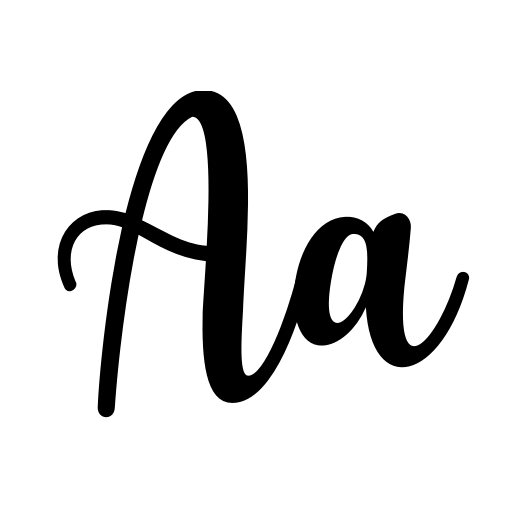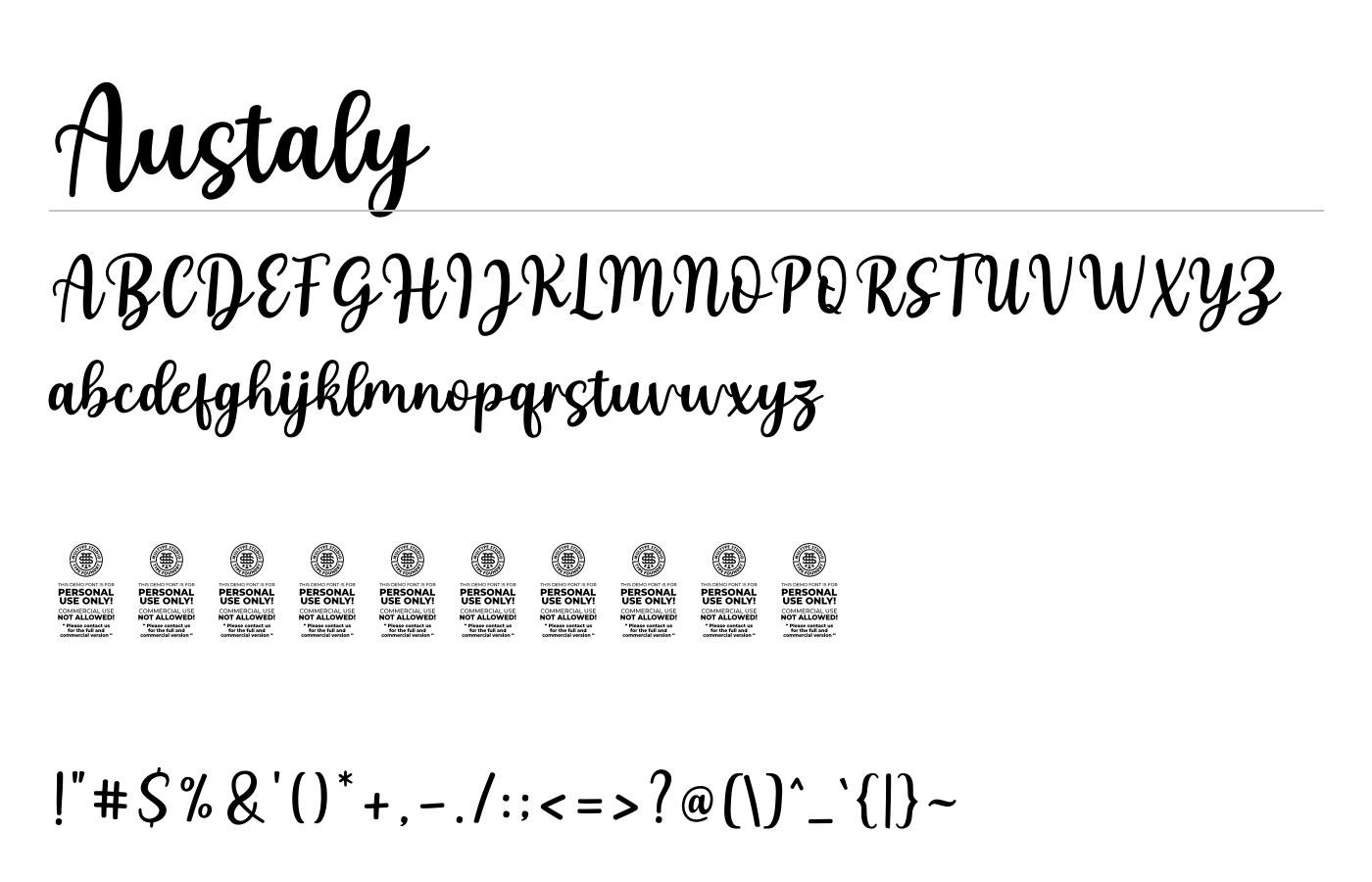
Austaly is a charming script font with smooth, flowing strokes and a friendly, handwritten style. Its moderate weight and rounded letterforms give it an inviting, casual feel that works beautifully for branding, invitations, and creative projects seeking a warm, personal touch. This font shines in logos and headlines where a stylish yet approachable look is desired.
Austaly Font
About Austaly Font
| Designer | Mulia Yanto |